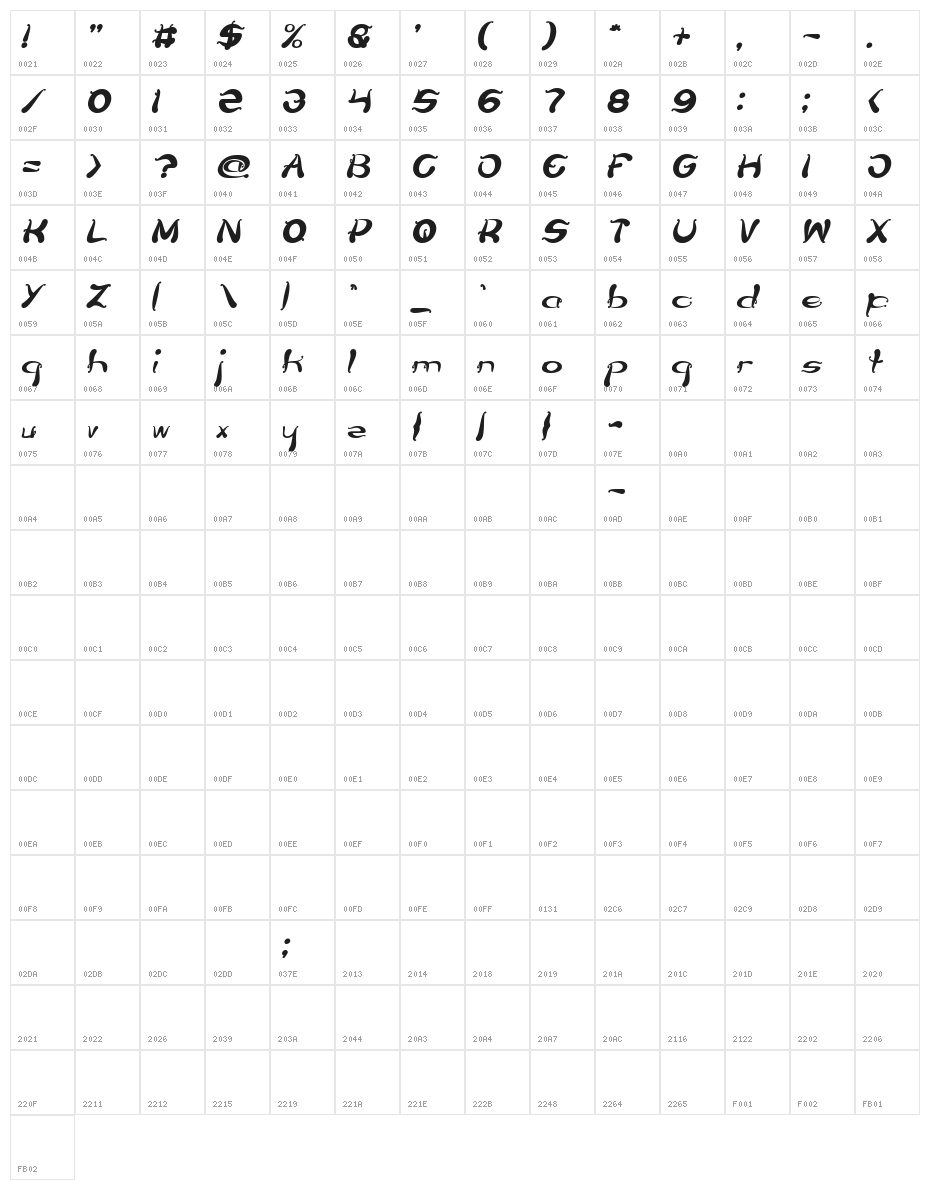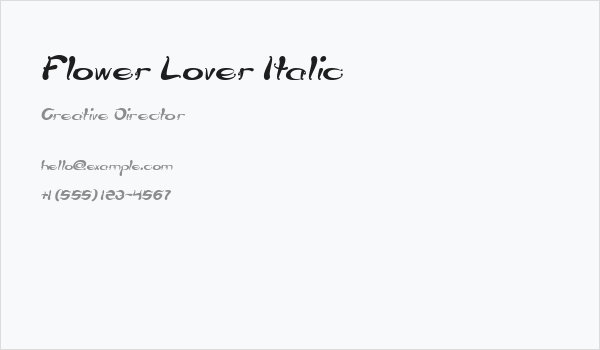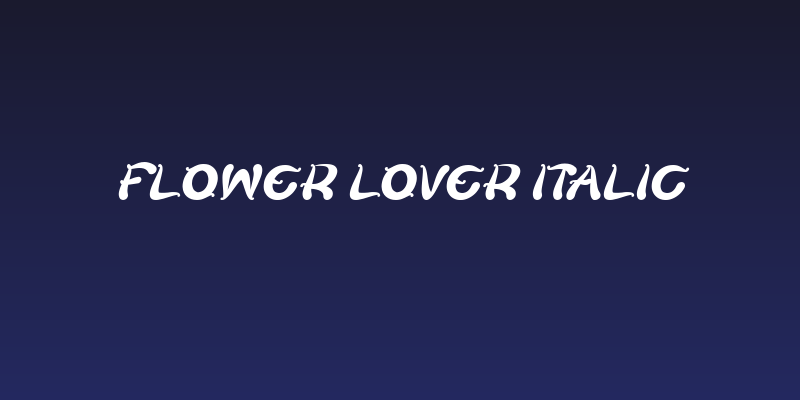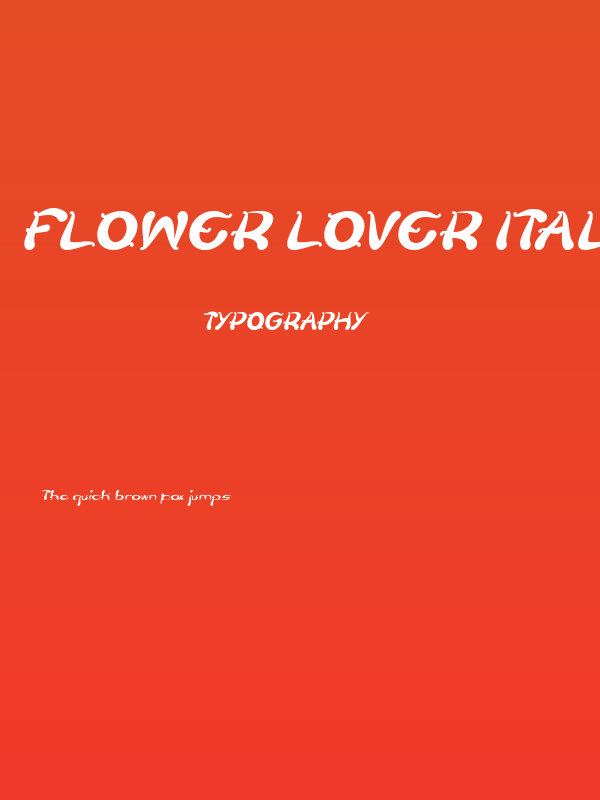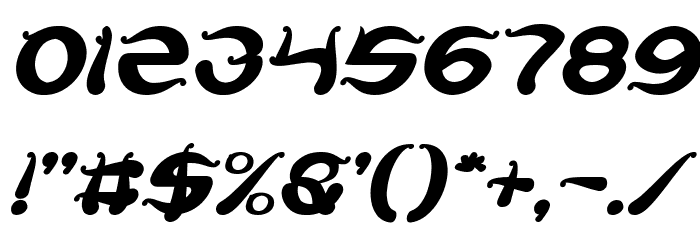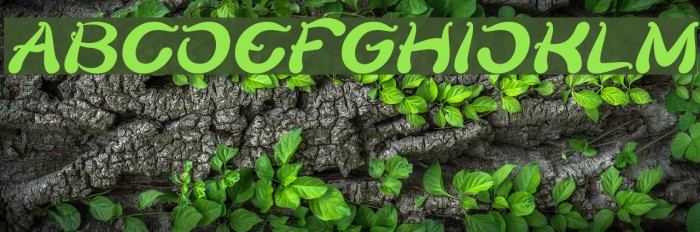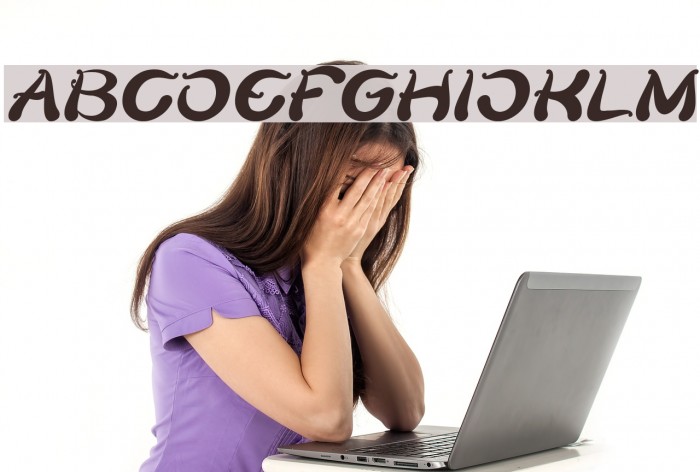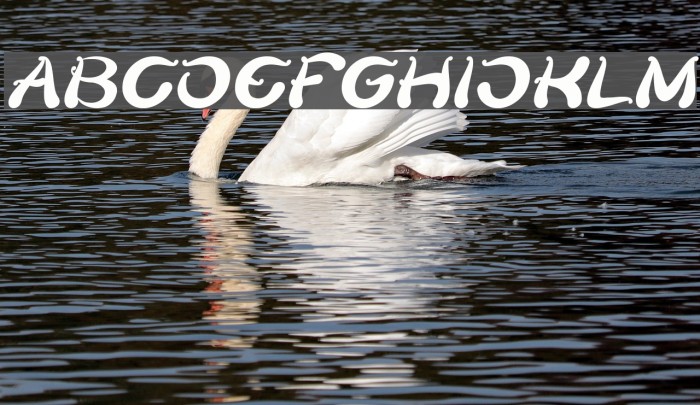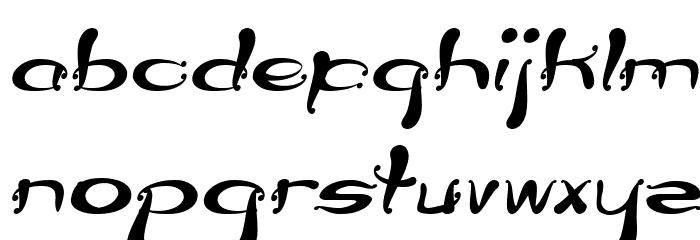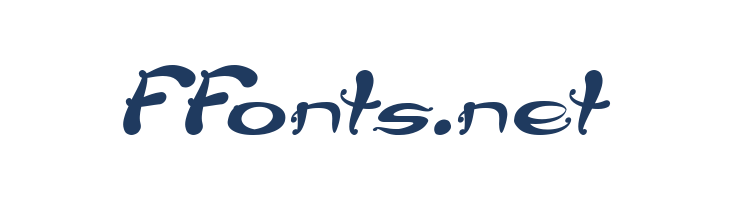
Flower Lover Italic Font
Flower Lover Italic Description
This font features a whimsical and decorative style, characterized by its flowing, italicized letterforms that incorporate floral elements into the design. The uppercase and lowercase letters are uniquely stylized, with each character exhibiting a playful, organic flair. The numbers and special characters maintain this theme, offering a cohesive and artistic appearance. The font's overall aesthetic is both elegant and imaginative, making it suitable for creative projects that require a touch of nature-inspired artistry.